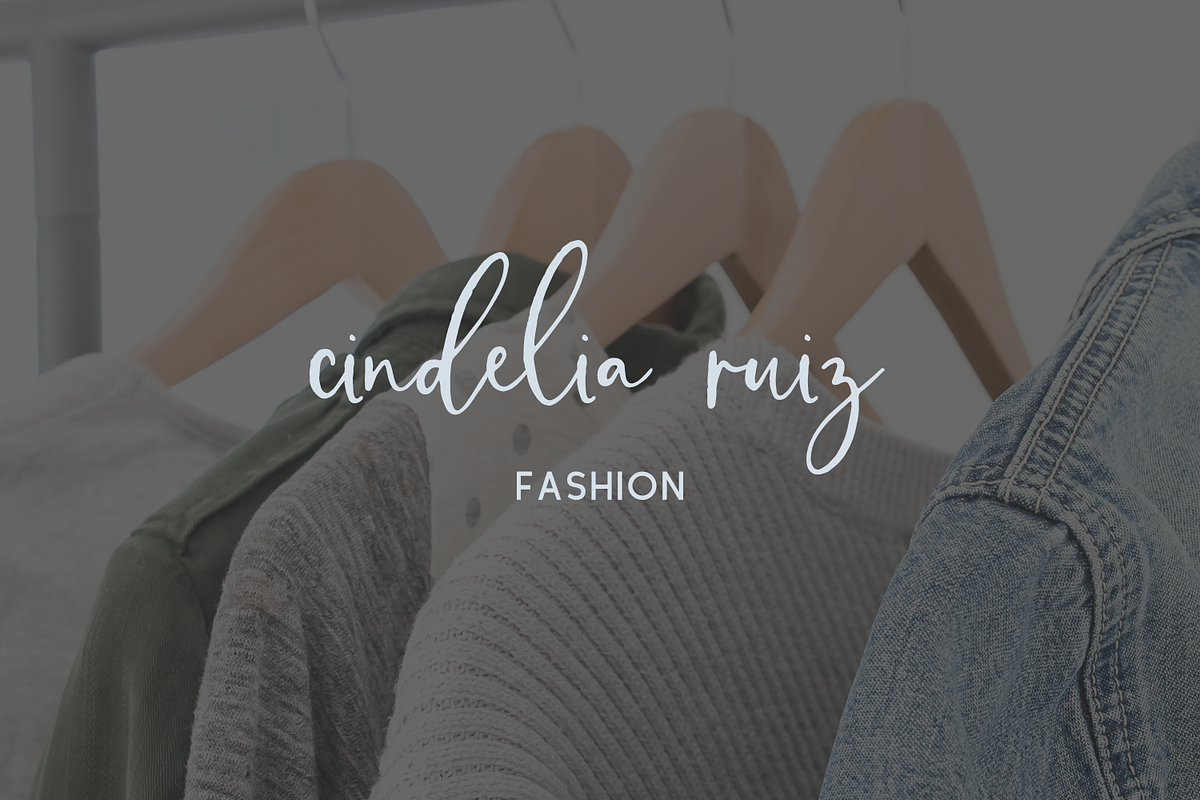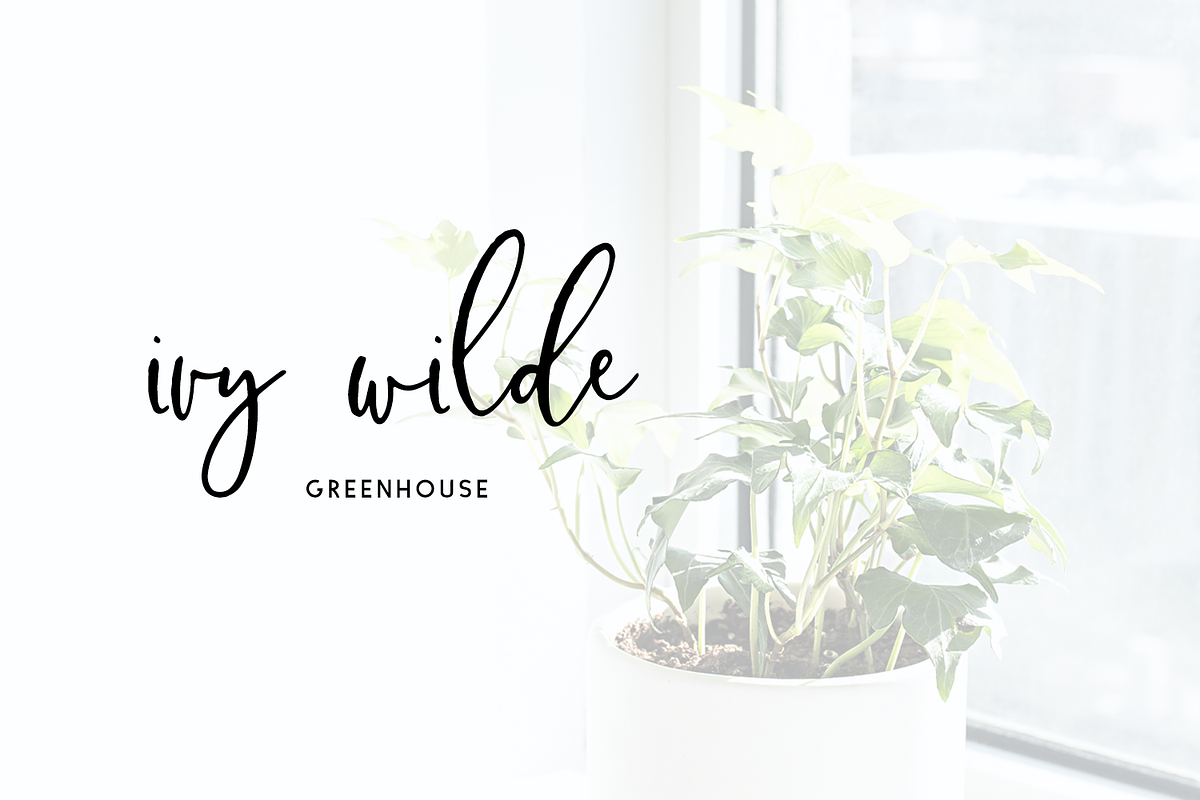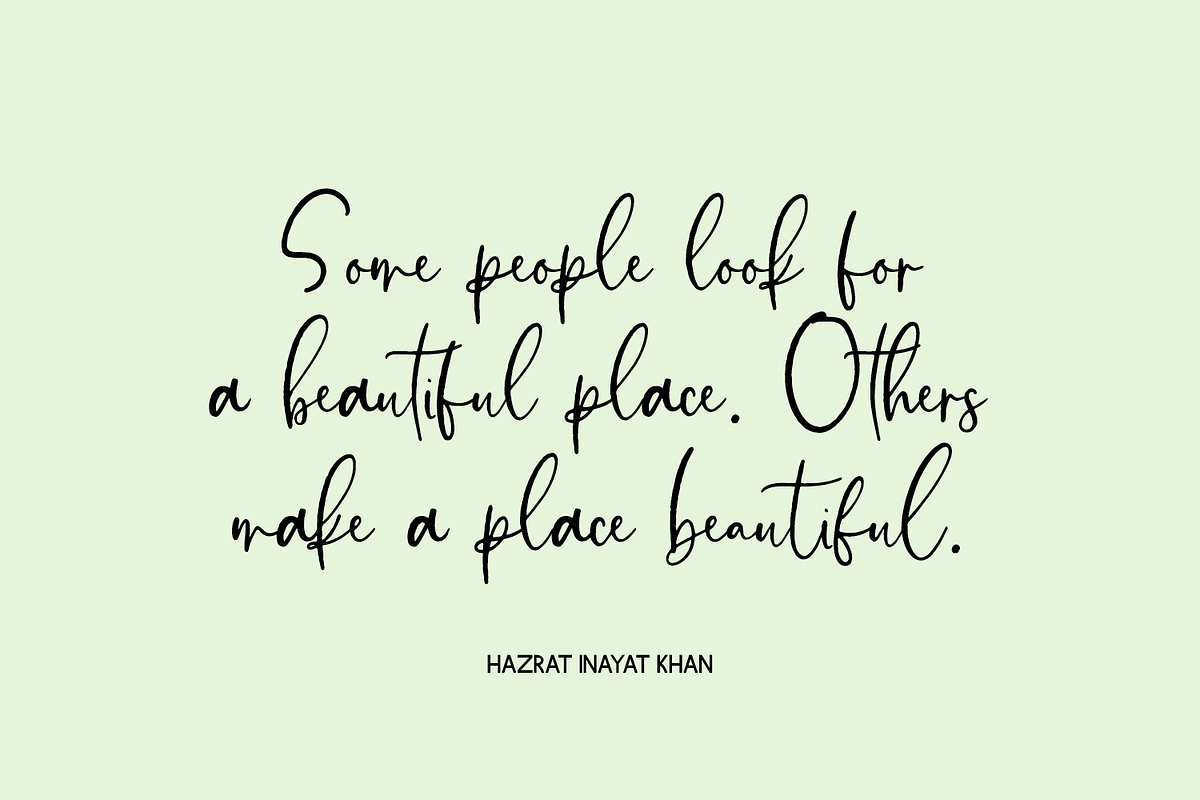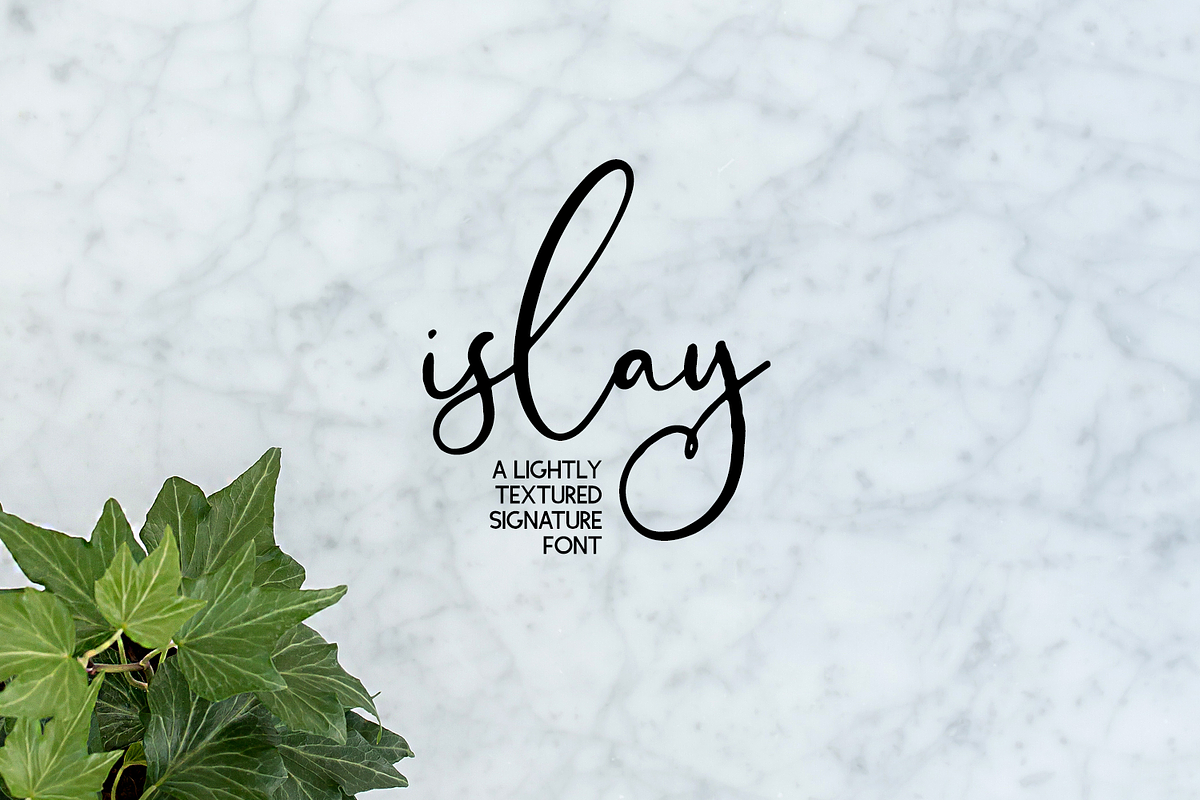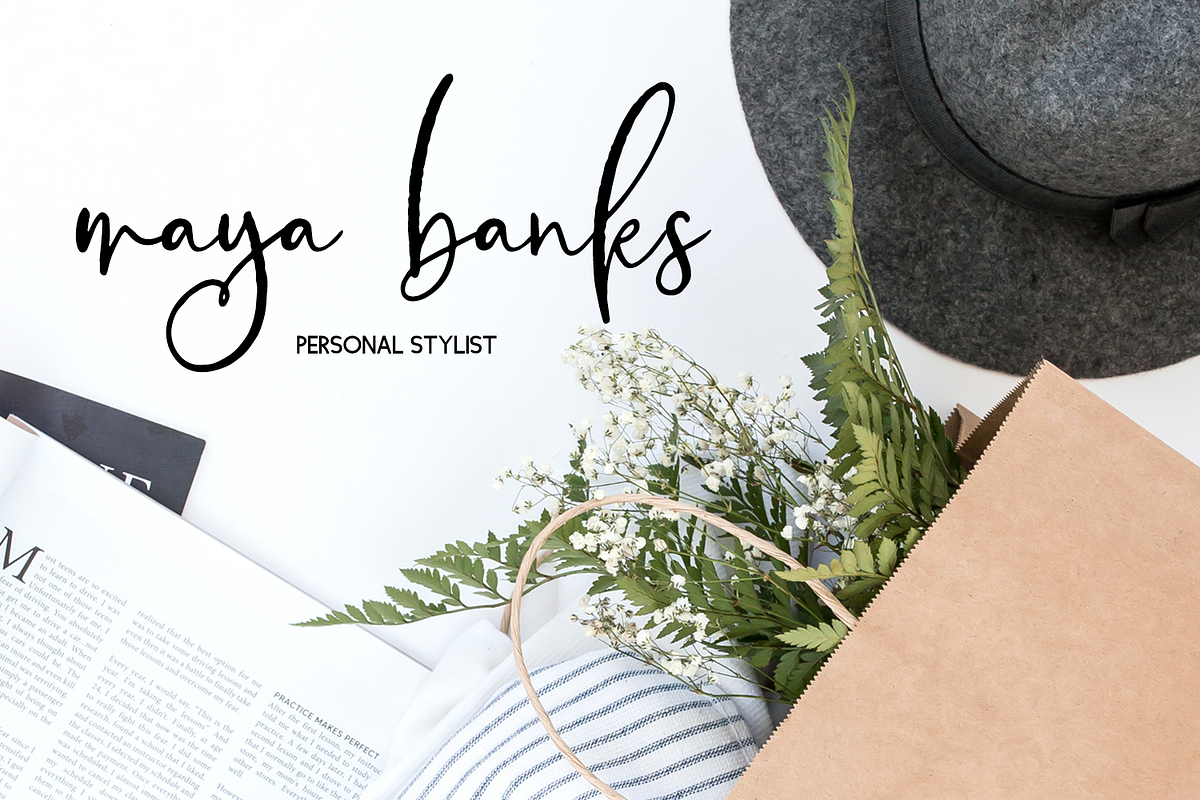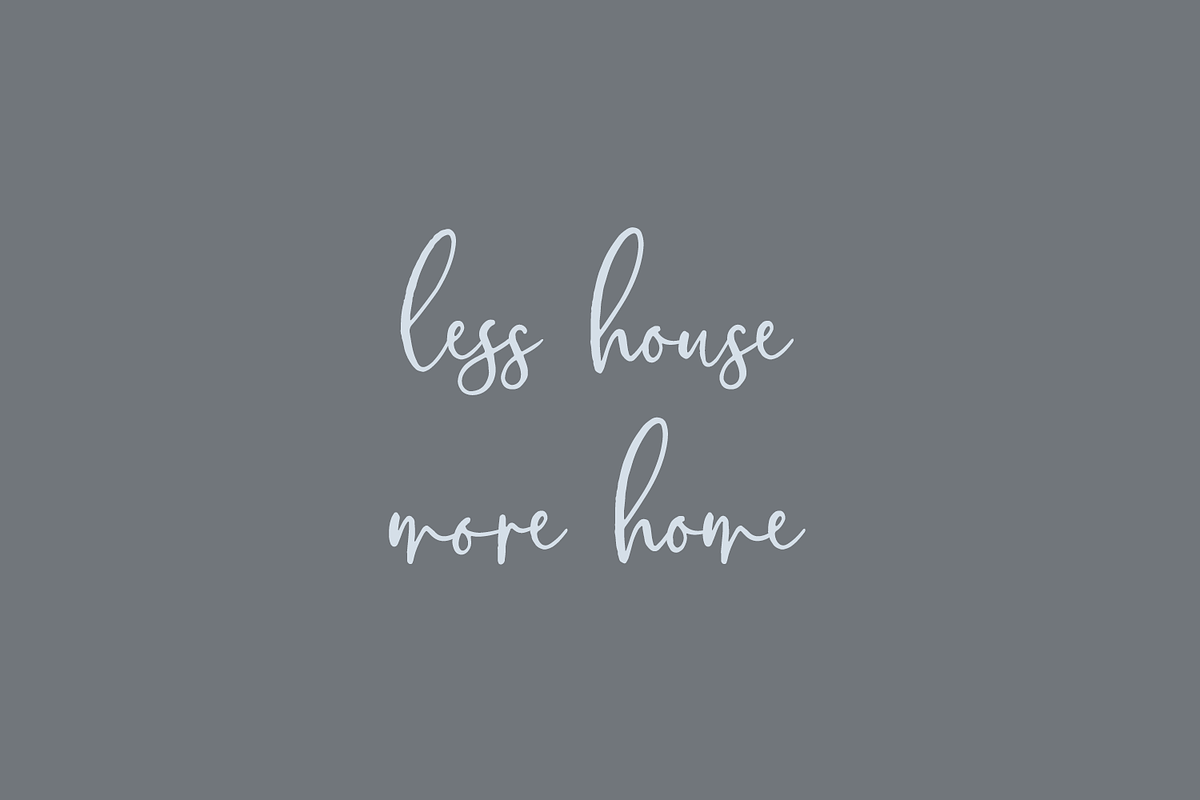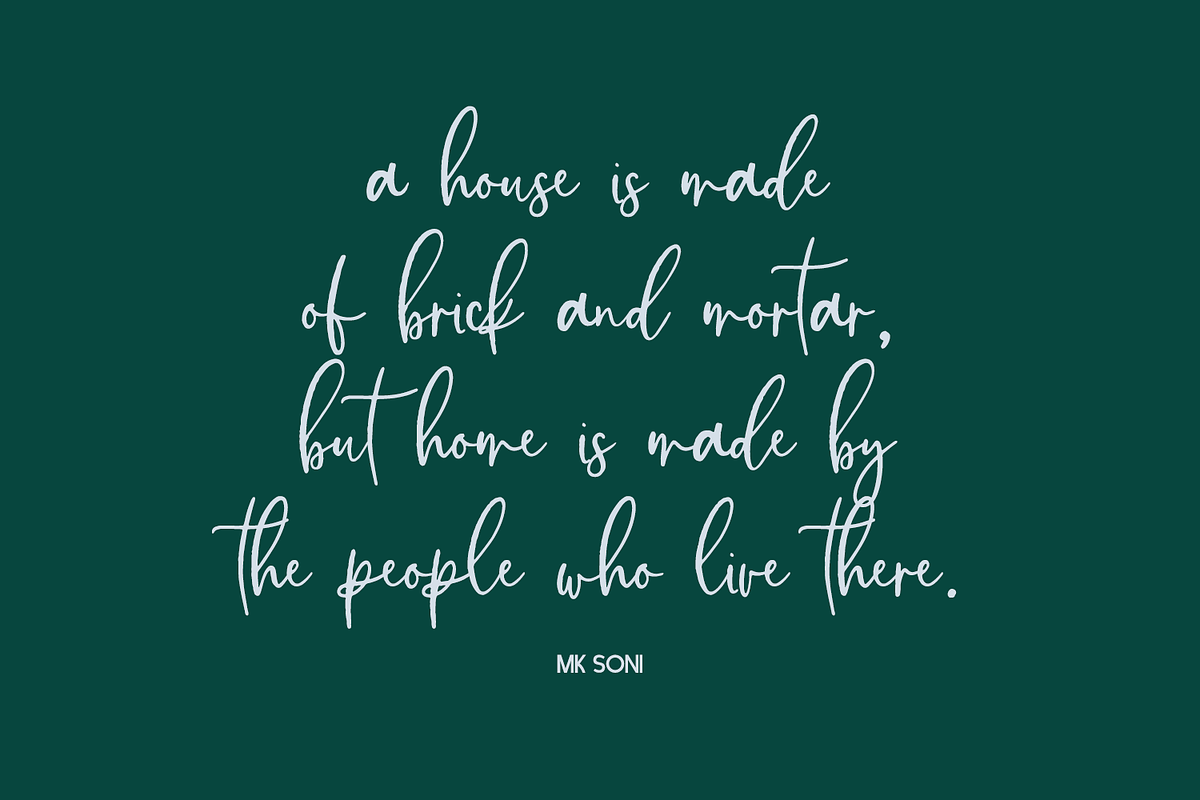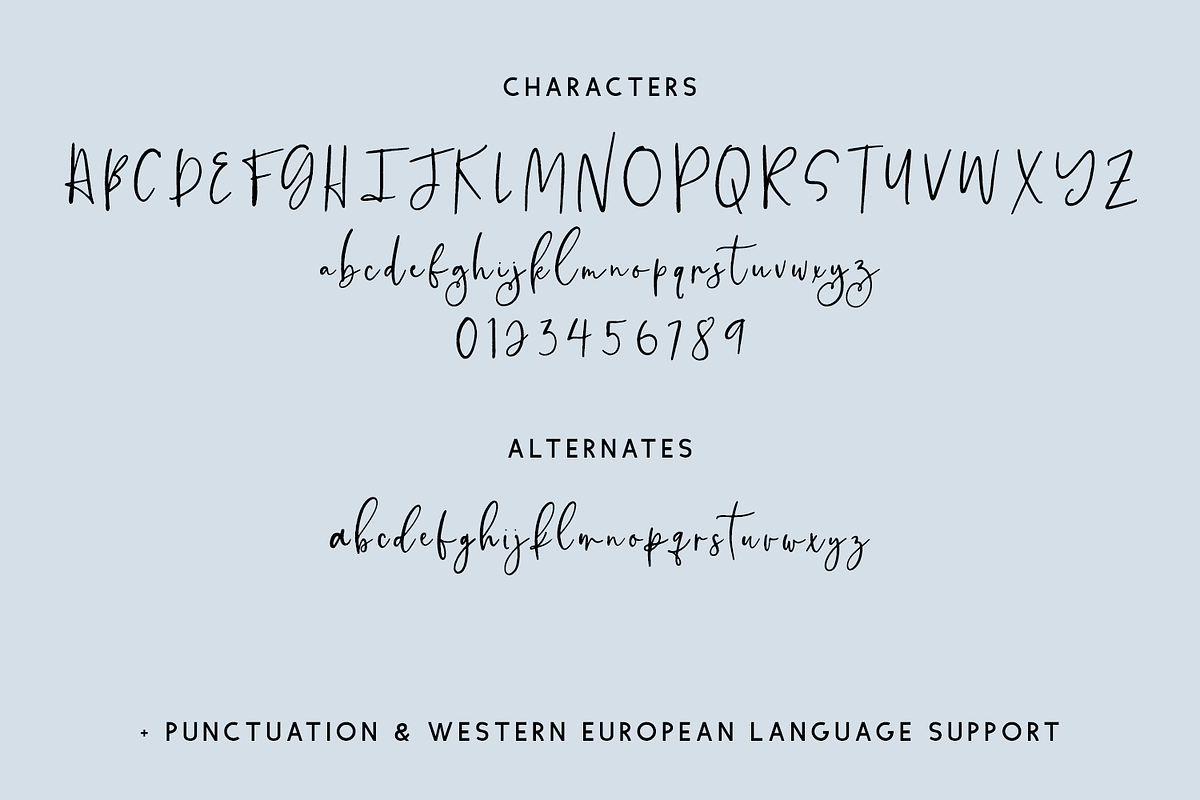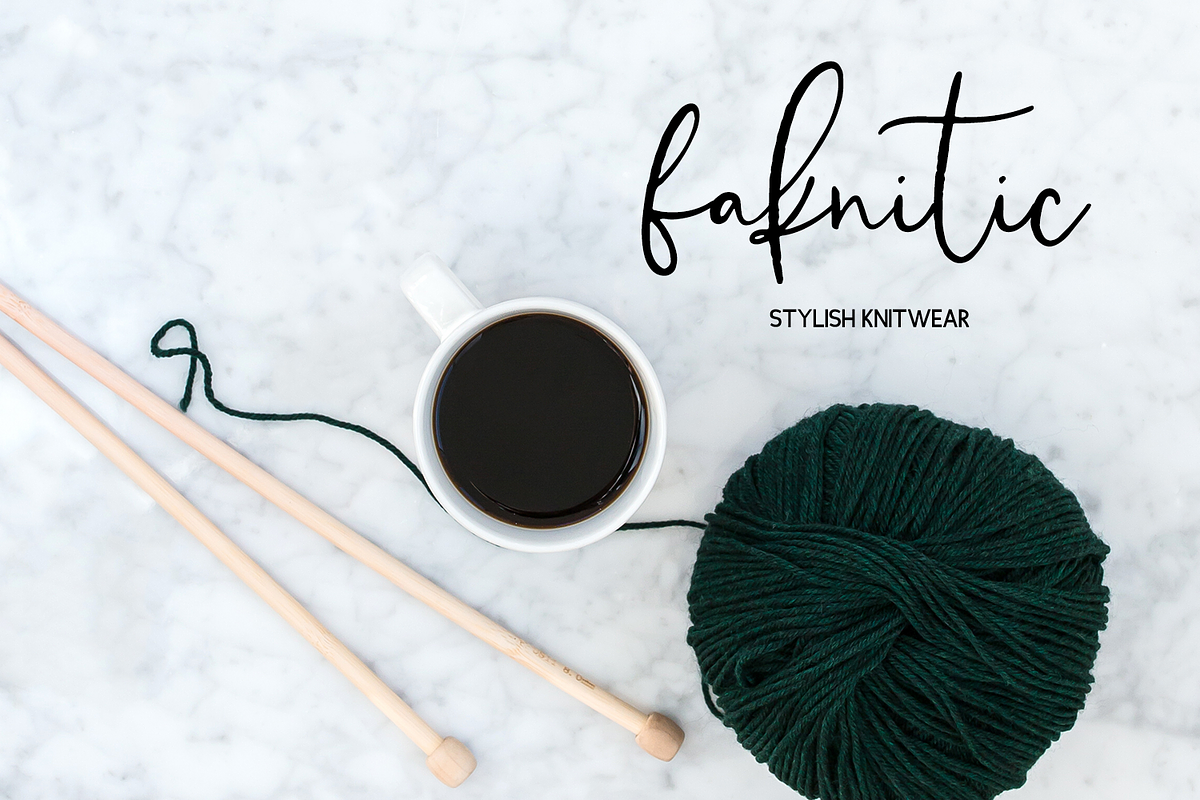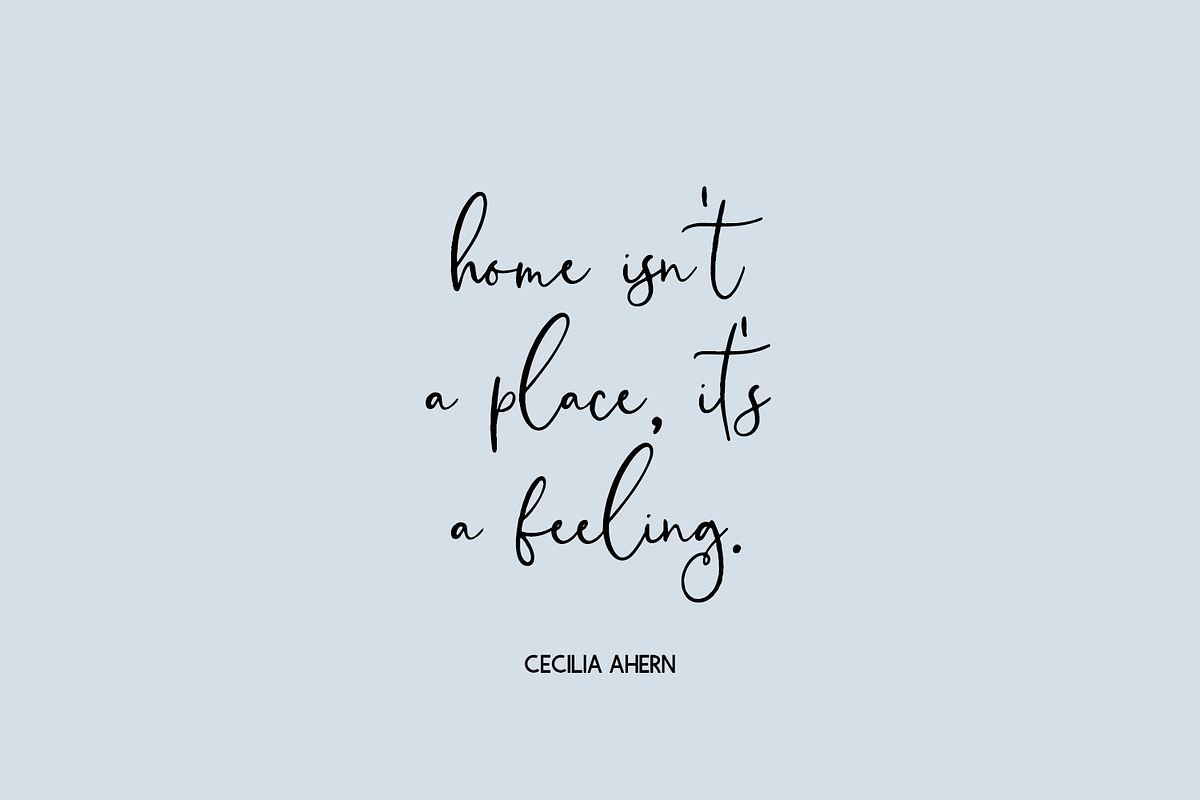
Islay Script
Introducing Islay Script, a signature style font with a slight bit of texture. Islay features exaggerated uppercase characters, ascenders, and descenders, as well as a few fun flourished characters.
Islay Script is best for:
- logos + branding
- website design + website accents - think travel blogs, fashion blogs, & more
- clean print design, like magazines + flyers
- header elements that need handwritten touch
- quote graphics for social media
Islay includes:
- full upper + lowercase characters
- numbers + punctuation
- Western European Language Support
- 26 alternate lowercase characters